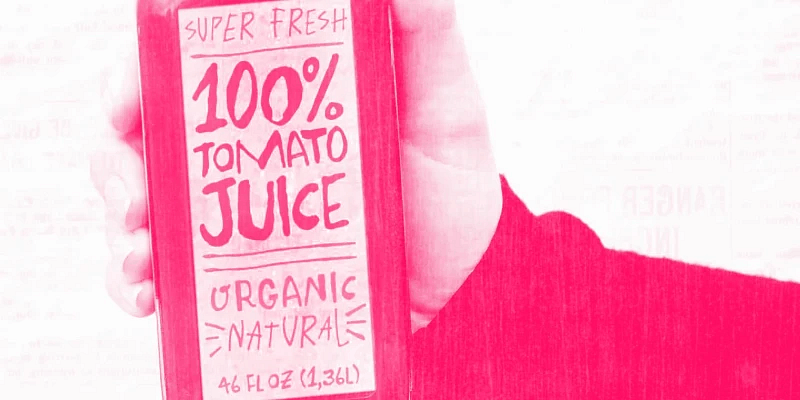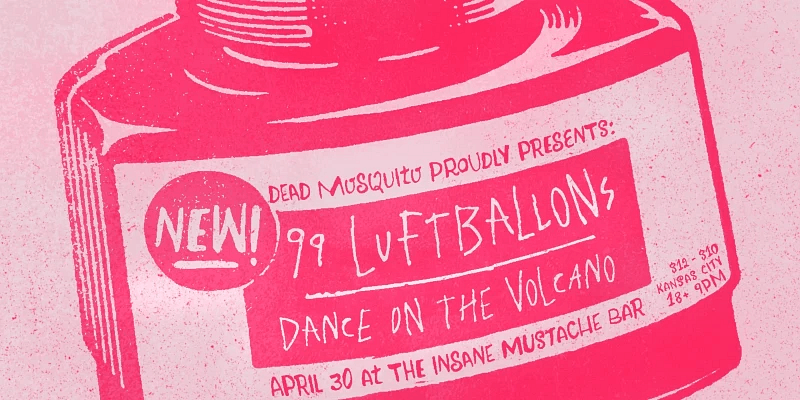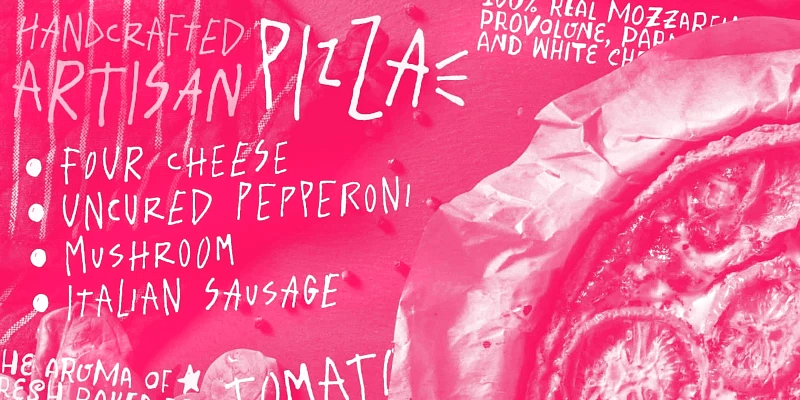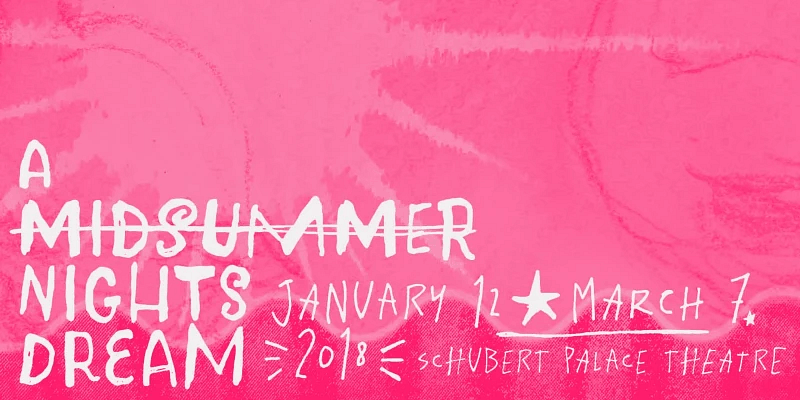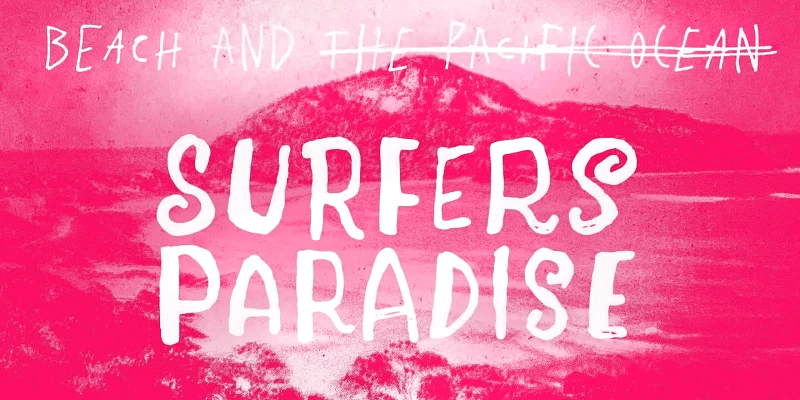
“Plunct is hand-scrawled typeface. Think of Plunct as a lanky, light, scratchy pen. Brimming with personality and a sense of urgency that can’t wait to make an impact. It offers tension and interest, ideal for headlines, posters, books, packaging, or anywhere you want to lean into the eccentric with both a whisper and a shout.